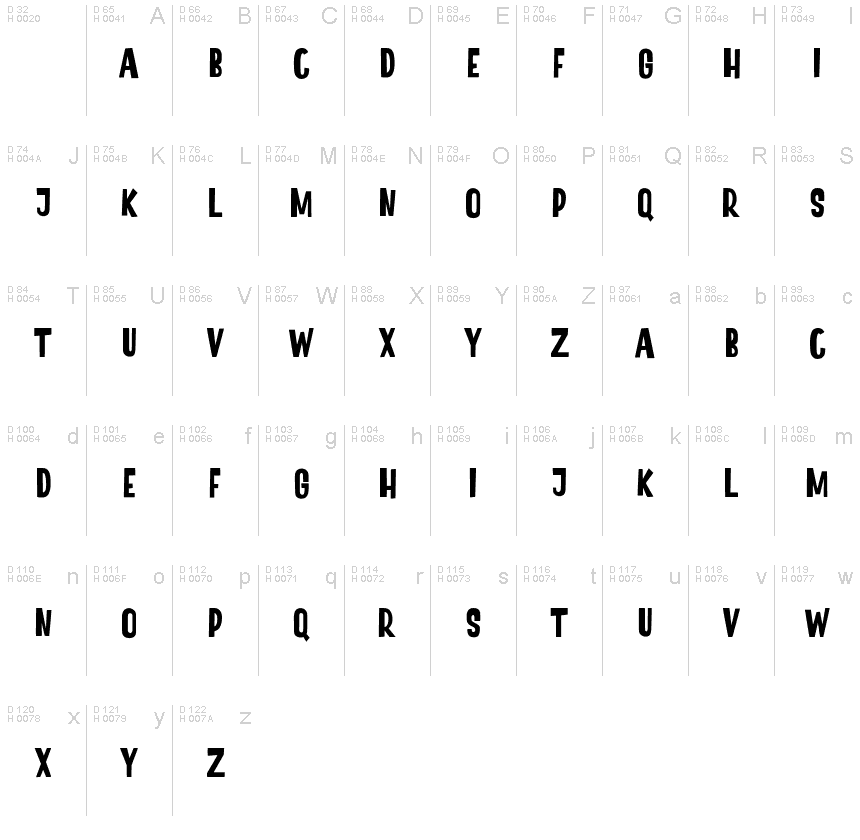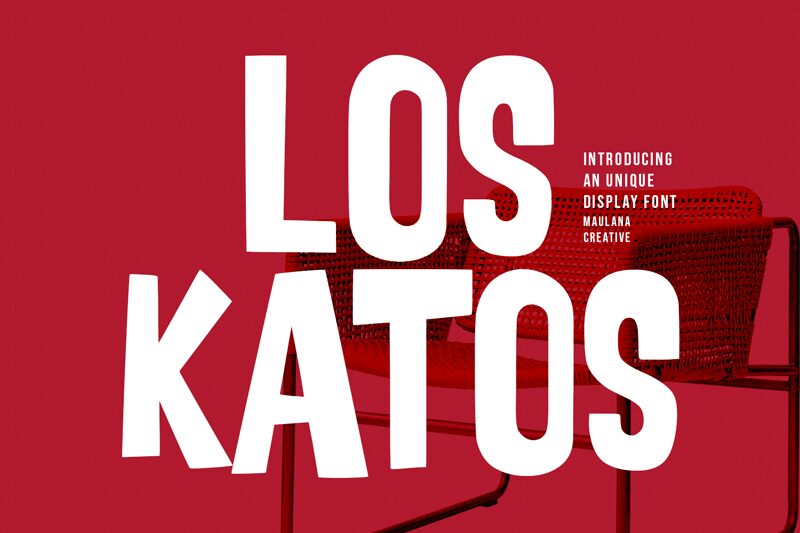
Loskatos Free Regular
Loskatos, the bold and condensed display font designed by Maulana Creative, is the perfect choice for projects that require a playful and fun touch. Its comic style evokes a sense of whimsy, making it ideal for children's books, games or even social media posts that need to stand out. With its thick strokes and condensed width, Loskatos commands attention and adds personality to any design. Whether you're creating a logo or designing a poster, this semi-bold font will add a touch of creativity that can't be ignored. Give your project the personality it deserves with Loskatos!